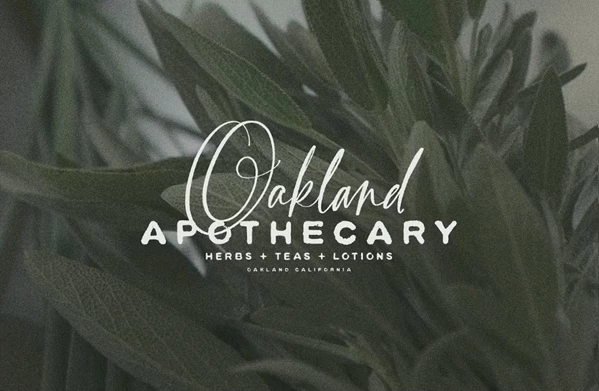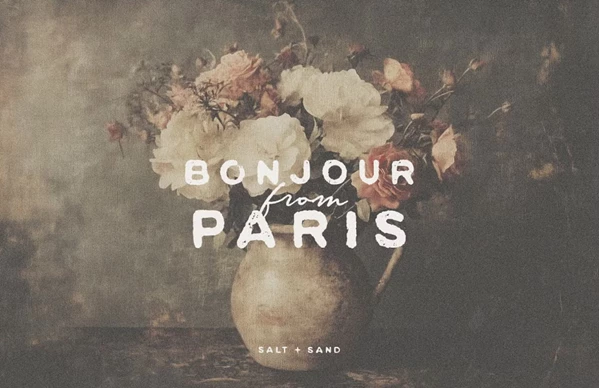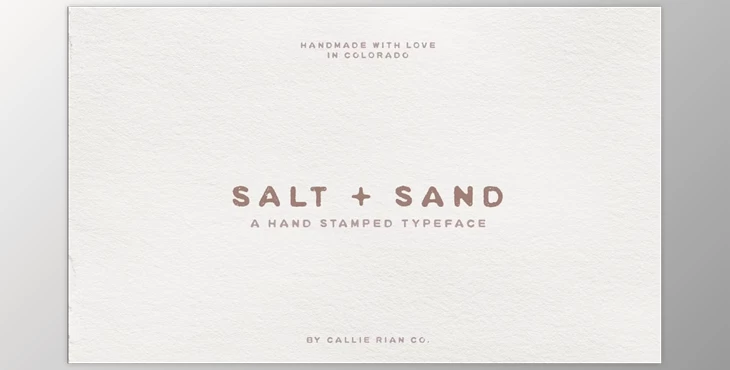
Salt And Sand Stamped Typeface:
Salt and Sand is a textured serif font that has been hand-stamped, making it perfect for rustic books, invitations, and logos. Additionally, it has both regular and italic slanted forms, which gives it that handcrafted look. It works well with Swallowtail Script, making it useful for elegant branding and wedding invitations. The set also contains standard English letters and numbers. However, bear in mind the textured appearance may not be suitable for Cricut or Silhouette cutting machines.
"Salt And Sand Stamped Typeface" Samples: